Cómo conseguir que los clientes se interesen por las fuentes (y por qué intentarlo).
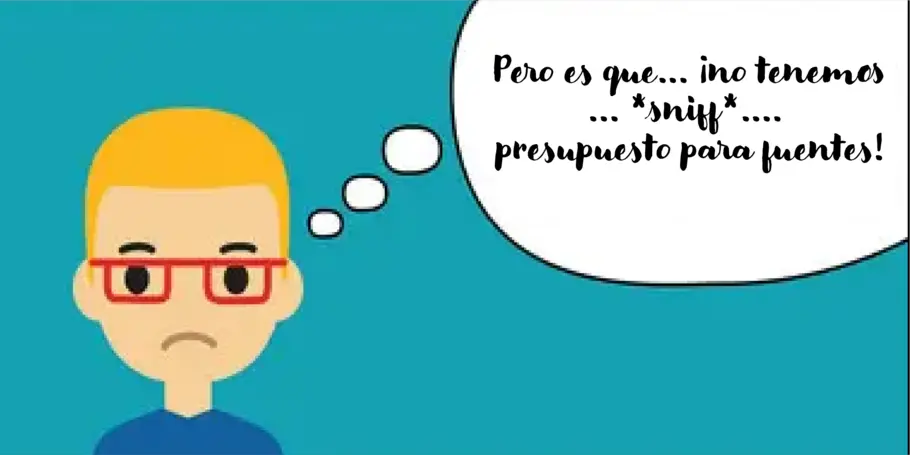
Heard this before? “We don’t care about fonts or where you get them.” How about this: “We don’t have budget for fonts, just make it work with something free.”
Maybe you nodded in agreement. Maybe you rolled your eyes, even if you dutifully went off and scoured the web for something free and attractive. Maybe you wanted to push back, but didn’t know what to say or didn’t think it was worth it.
Guess what: It is, and the benefits to your clients and your business are significant.
Type is like clothing: What you wear is a reflection of who you are
First off, the purpose of this article is not to bash free or system fonts. Many free fonts are quality fonts, and system fonts are as reliable as a Toyota Camry. They have their place in a designer’s repertoire, which we’ll touch on later.
However, when it comes to branding, these options can leave a lot to be desired. Free fonts are very hit and miss: many lack full glyph sets, which makes translations difficult or impossible, while others have limited weights, sizes and styles.
System fonts are reliable, but that comes at the price of being overexposed. The same is becoming true for many free fonts, especially the good ones. Since anyone can use them, everyone will, whether it’s you designing your client’s website or the local PTA advertising a bake sale.
As a designer, your job is to deliver a quality design that, most importantly, the client likes. But designers can also help steer clients toward choices that better fit the project. Clients may not understand how important type is to making a good first impression. Choosing a quality design that complements the project, and brings excellent legibility and versatility across platforms, says a lot about a brand’s personality, credibility, and attention to detail.
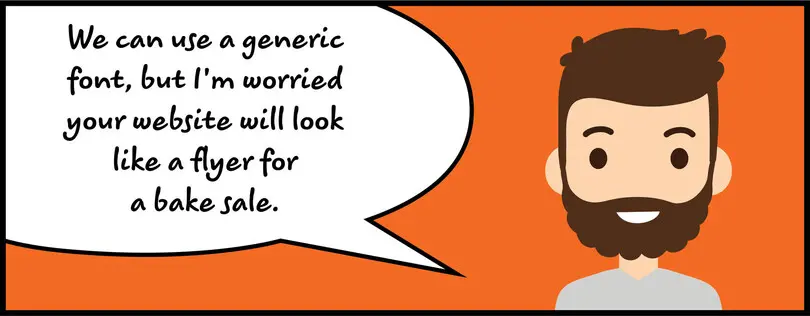
Put differently, is a less appropriate typeface that performs adequately the first impression your clients want to make? Probably not. Paying for quality type may not seem worthwhile to a client, but it’s important to spell out the implications of that choice.
Secure licensing
We hear it all the time from clients and freelance designers alike: Licensing is confusing.
No argument there. Licensing terms vary a great deal, leaving you wondering where a font can be placed, how much it can be used, whether it is licensed for digital applications, and what, if anything, your client must do to maintain that license down the road. This all assumes the font is licensed at all, and what if it isn’t?
No designer wants to hand off a project with a shrug and a “good luck.” It puts the client at risk of legal issues around its font usage. Being able to recommend fonts with clear and broad licensing can pay off in the form of future work, recommendations, and general client happiness.
Purchasing fonts from a reputable marketplace or foundry takes the guesswork out of licensing. Licenses are clearly spelled out, and multiple options are usually available. This allows you to present clear options to your client for both digital and print usage. Clients don’t need to purchase fonts to get this degree of assurance, but finding distinctive fonts with clear, inclusive licenses on the free marketplace can be more time-consuming.
Give your portfolio a boost
Being well-versed in type and the mechanics of font licensing makes you more valuable to your clients. It’s a level of expertise that can differentiate you from other designers competing for work, and can lead to stronger word-of-mouth recommendations.
It also allows you to market yourself in different ways. In addition to your talents as a designer, you can approach brands with ideas and solutions that go beyond the execution of the project. Clients may be grateful for a designer who can educate them about the aesthetic and branding benefits of type while heading off potential legal headaches down the road.
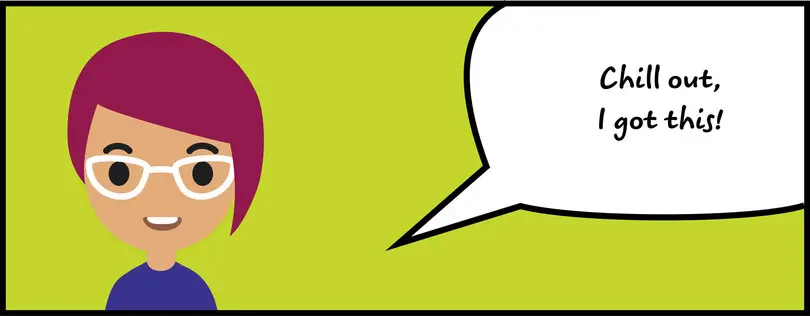
This adds a lot of value to your pitch and can lead to more work down the line. Your portfolio will tell the story of a talented designer who thinks big and solves problems for brands. That’s something potential clients love to see.
And sometimes, just let it go
Let’s be honest: Paying for type will not make sense for some clients. That’s fine. There are very good free fonts available. Tried-and-true system fonts will get the job done. Sometimes you need to pick your battles and just do what the client wants.
Still, the point is to have the conversation. Many clients don’t know what they don’t know. A little education on fonts, perhaps accompanied by some gentle prodding, can go a long way even if the clients still insists on a free font. You come away looking like a type whiz either way, which only helps build your reputation and expertise.